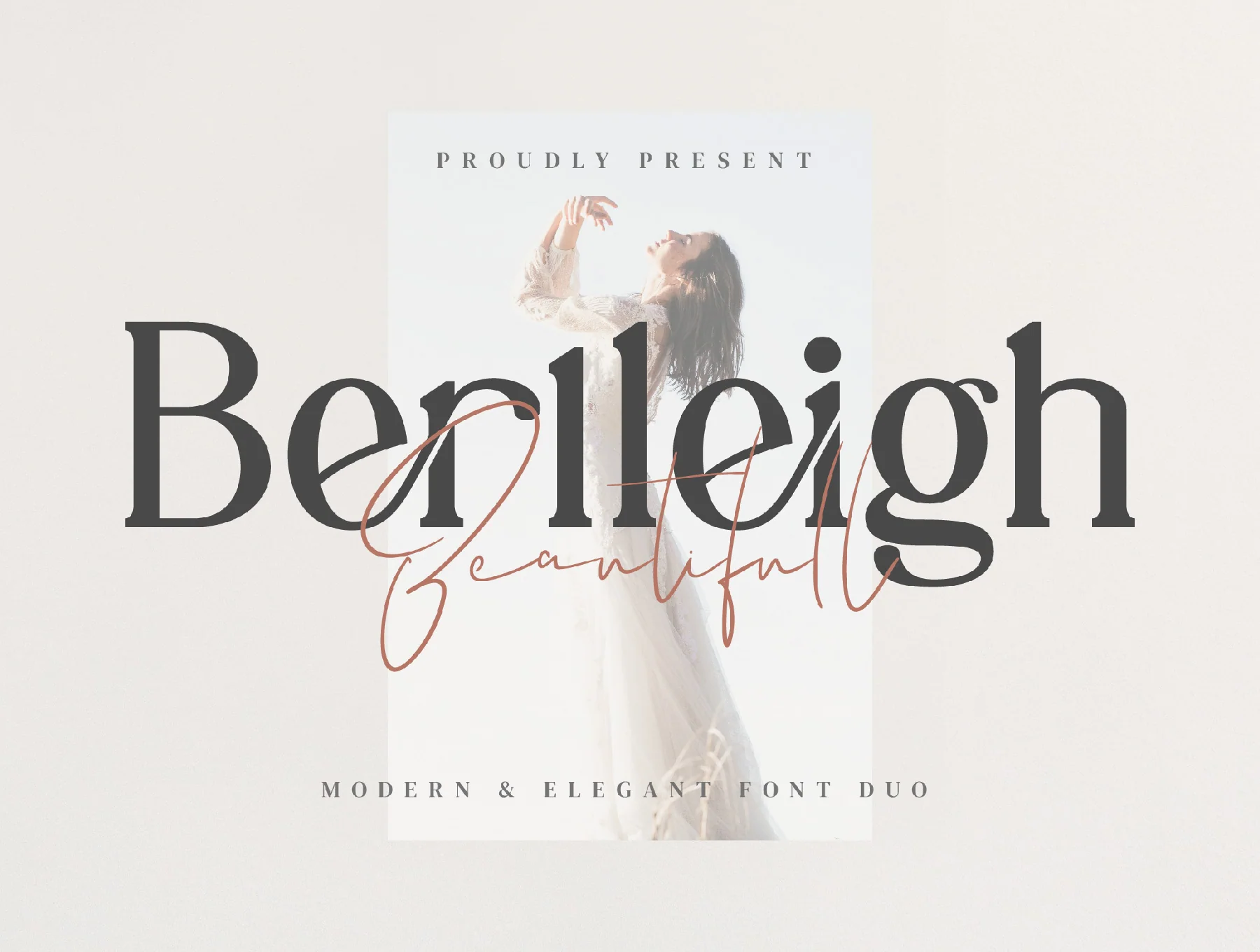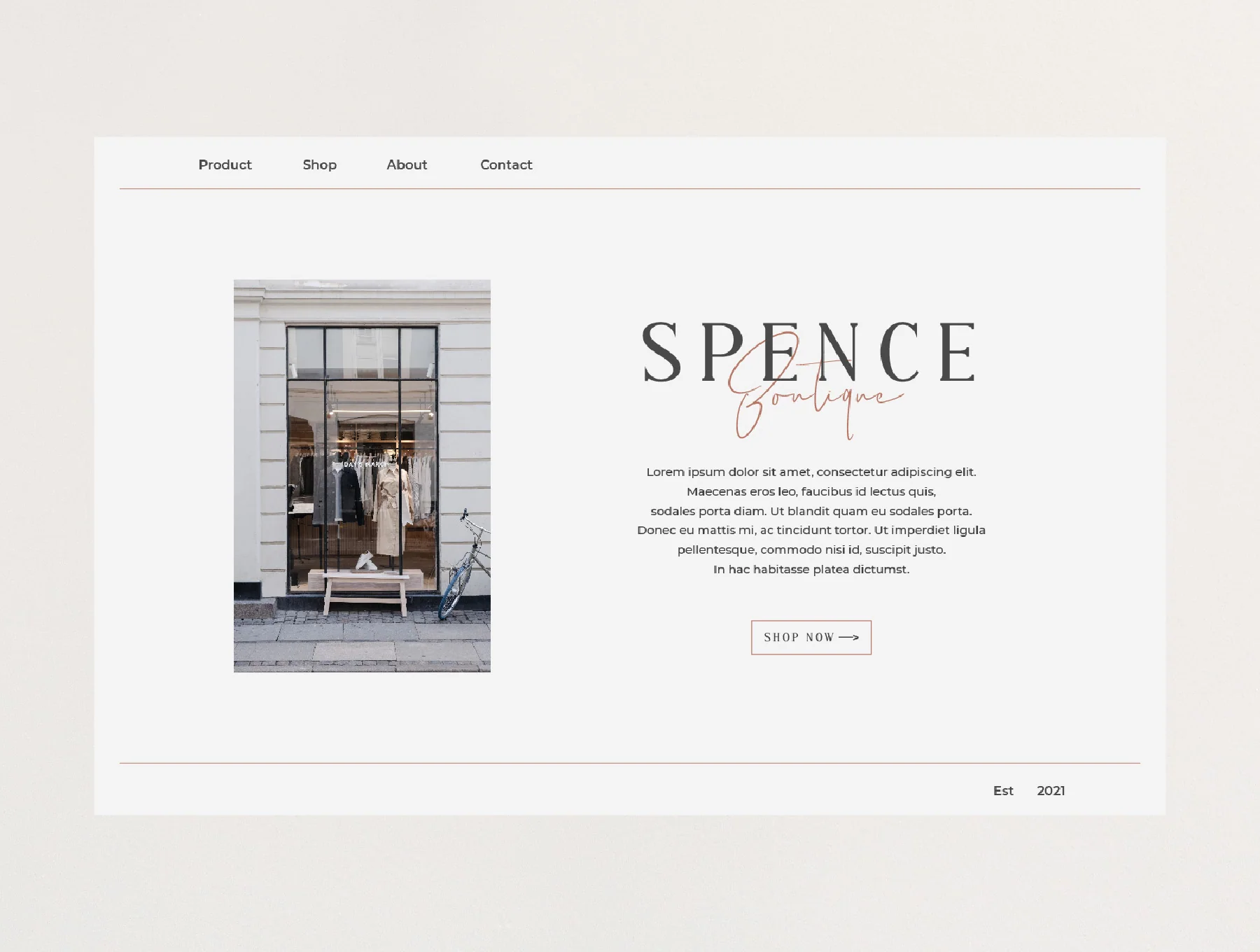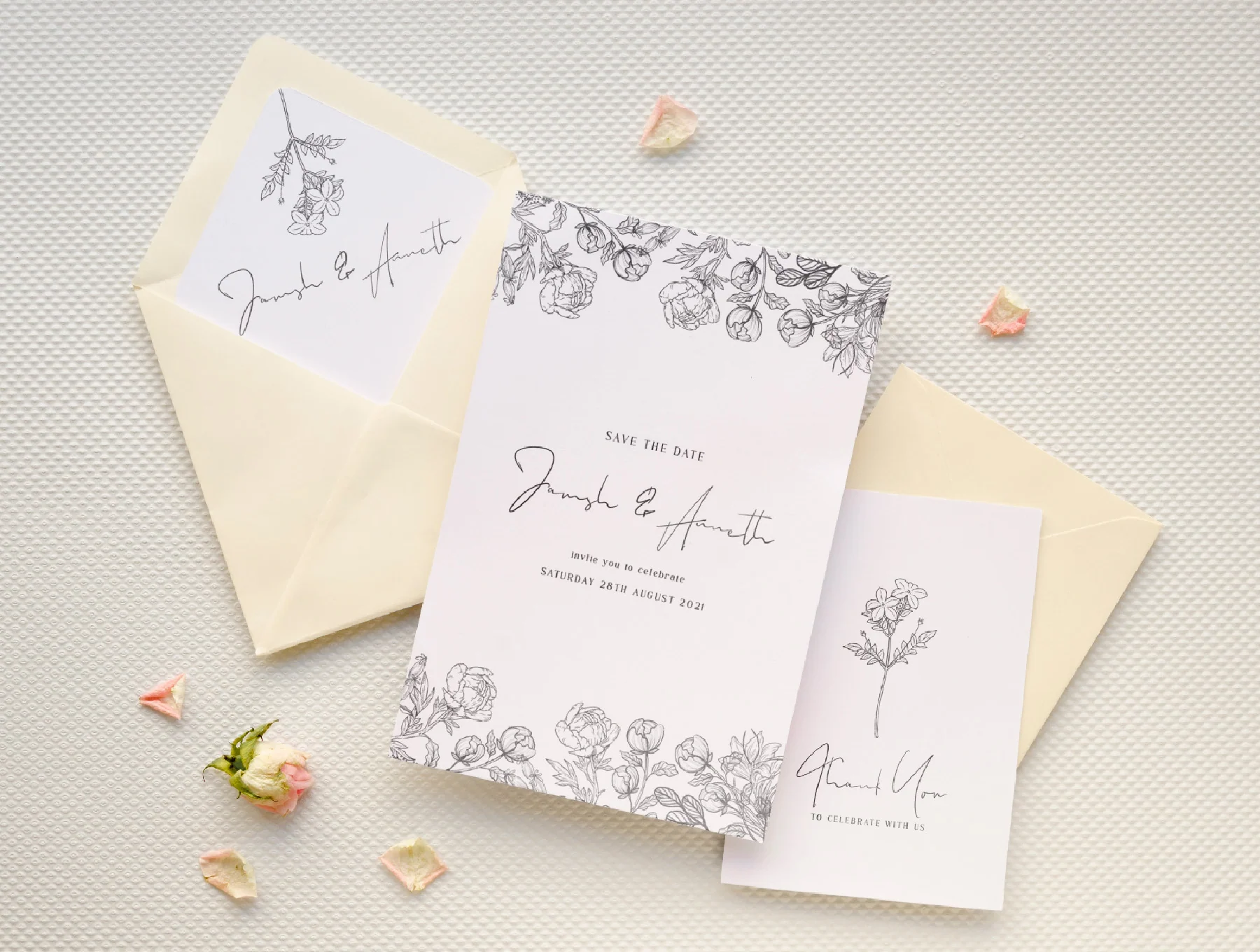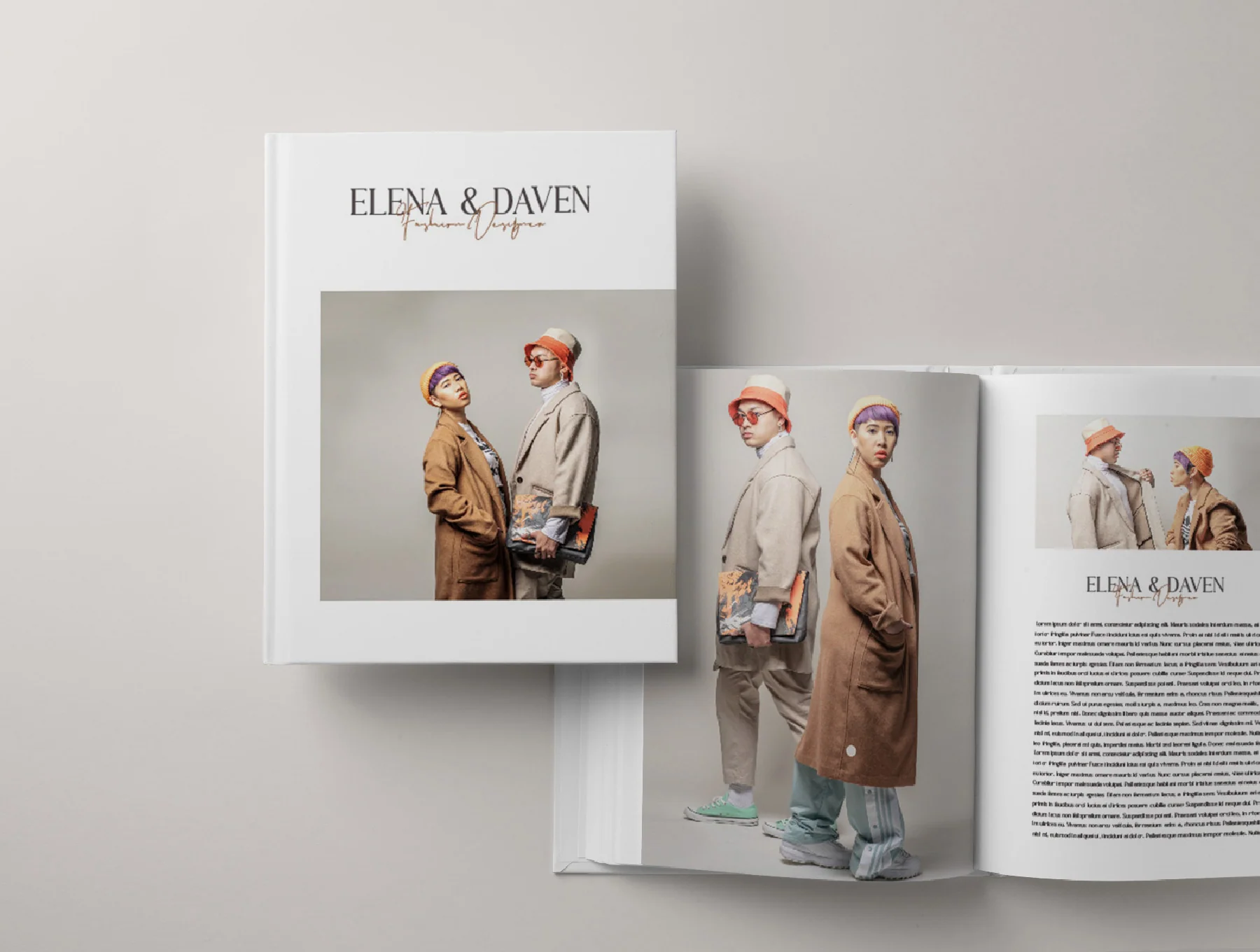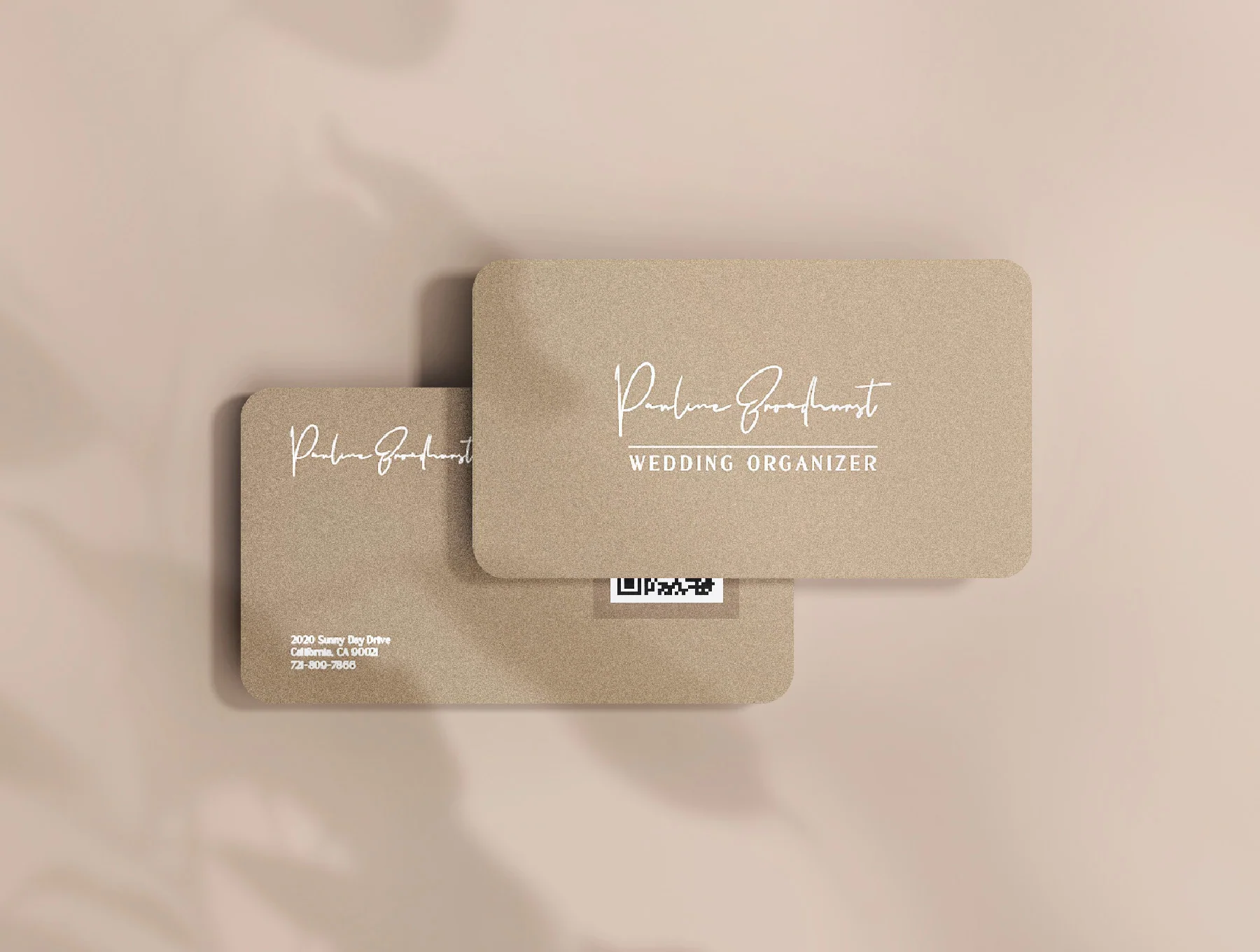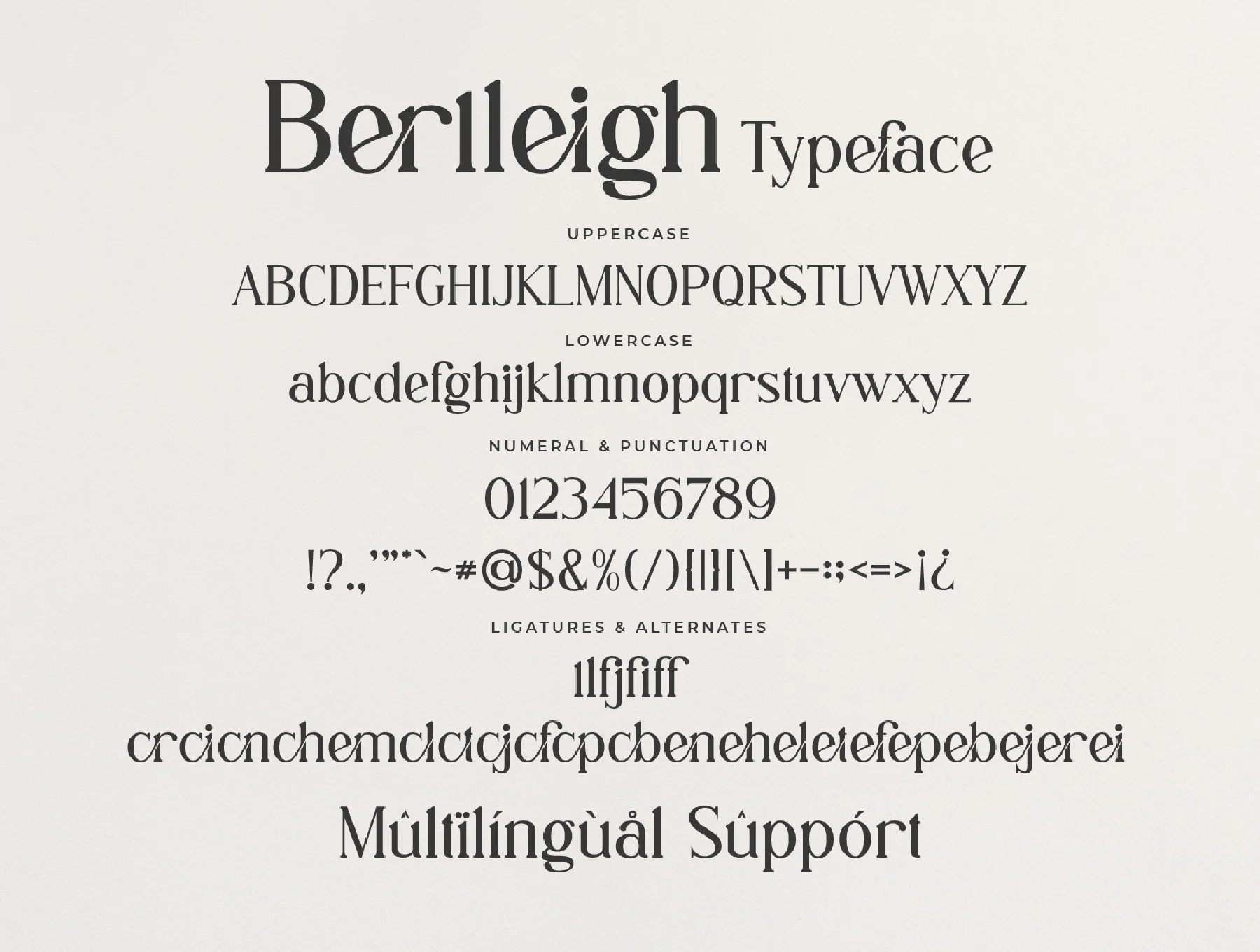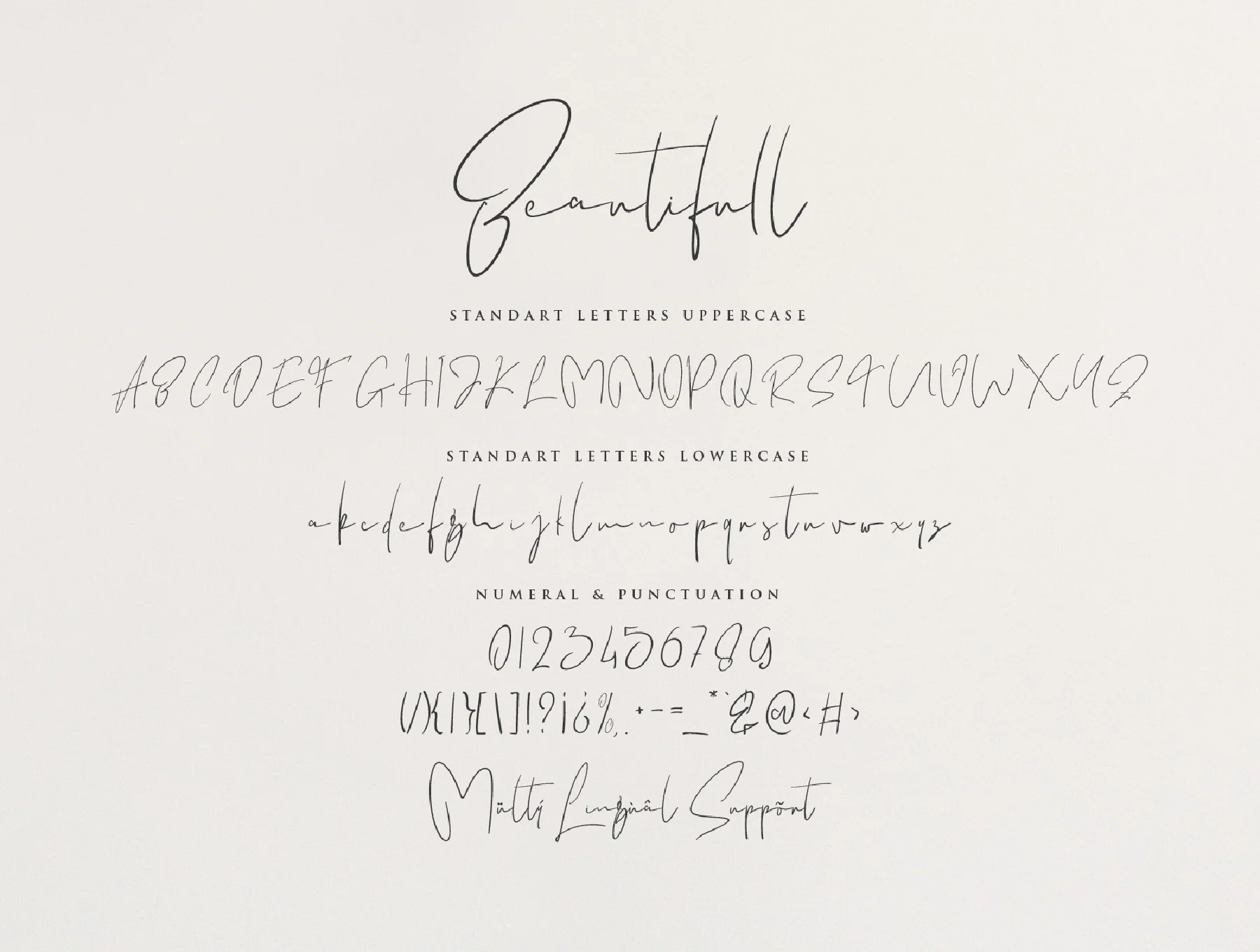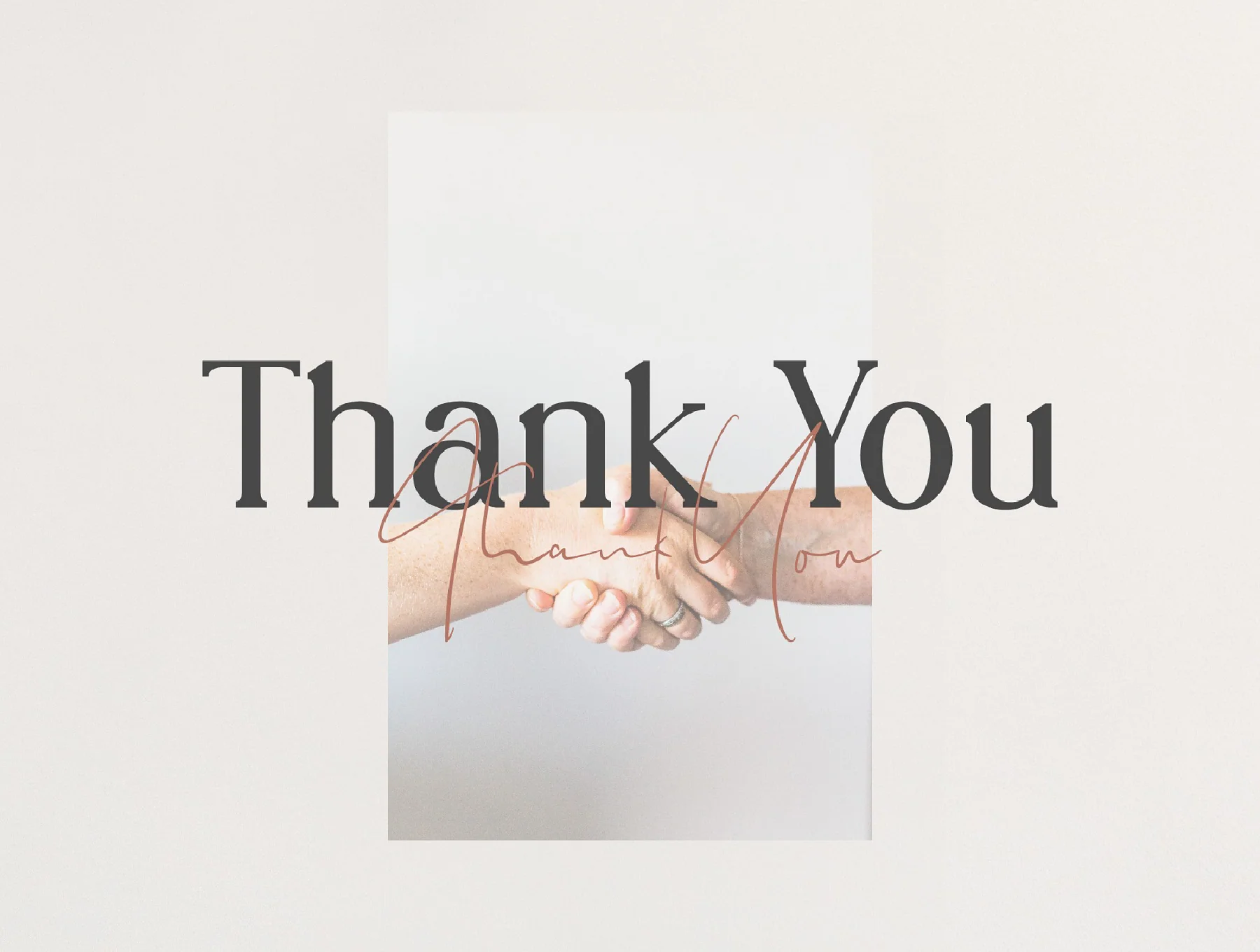
Berlleigh Beautifull Font Duo
Serif Signature Typeface
Ligature characters
Berlleigh & Beautifull Signature is an elegant display serif duo with stylish ligatures, suited for templates, brochures, video titles, ads, branding, logos, and more. Includes Berlleigh and Beautifull Signature in OTF/TTF, web fonts, standard glyphs, ligatures, accents, multilingual support, PC/Mac use, easy setup, and PUA encoding. Preview images are not included.